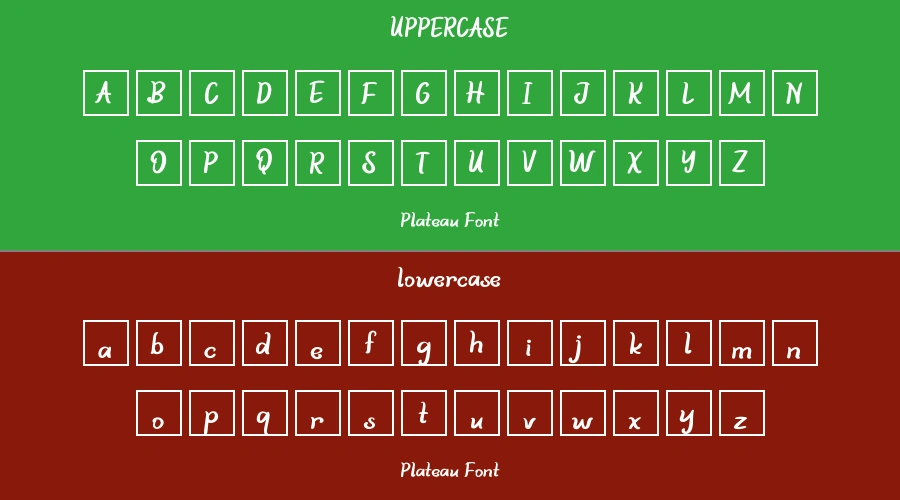
About Plateau Font
Plateau Font embodies typographic excellence through its masterful combination of precise joints and traditional values. Created for film titles, this typeface delivers exceptional personality and cultural significance across all applications. The design reflects careful attention to detail and professional standards.
Advanced capabilities include distinctive harmonious shapes and versatile classic proportions, giving designers creative control. When used in technical diagrams, Plateau Font exhibits remarkable brand recognition. The harmonious balance between x-height and cultural relevance sets this typeface apart.